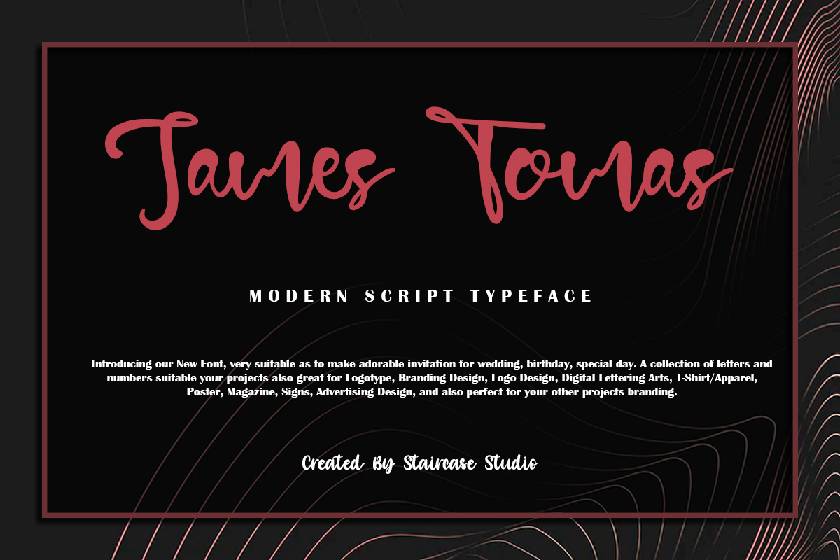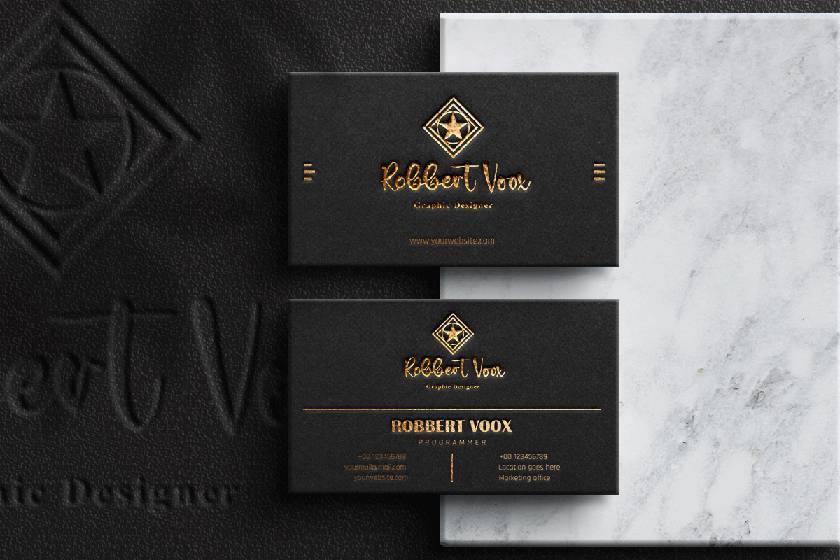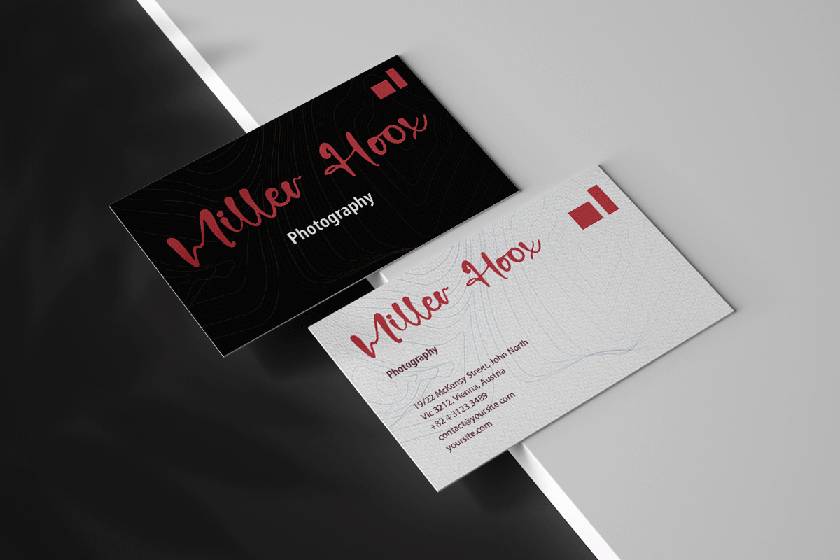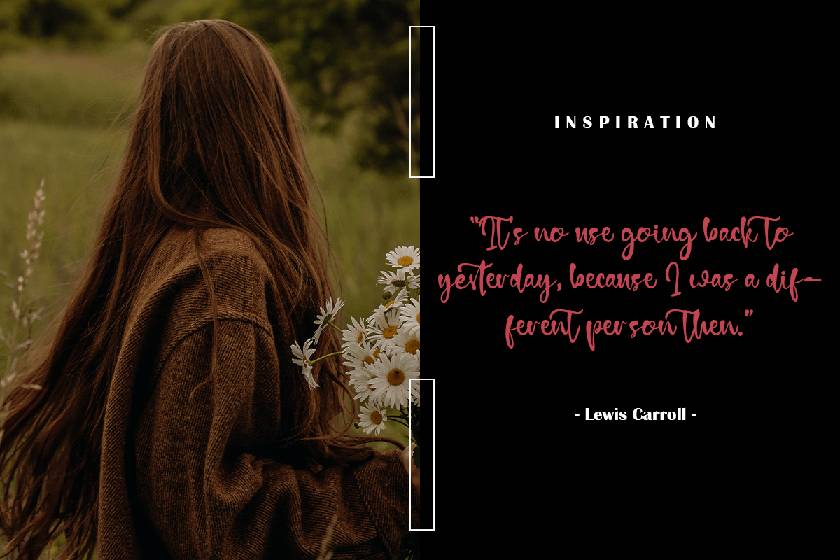
James Tomas is a lively and elegant script font with a playful, hand-drawn feel. Its smooth, flowing strokes combined with unique letter shapes create a personal and inviting style that works beautifully for creative branding, invitations, and casual headlines. This font shines in designs needing a warm, approachable touch with a hint of artistic flair.
James Tomas Font
About James Tomas Font
| Designer | Staircase Studio |